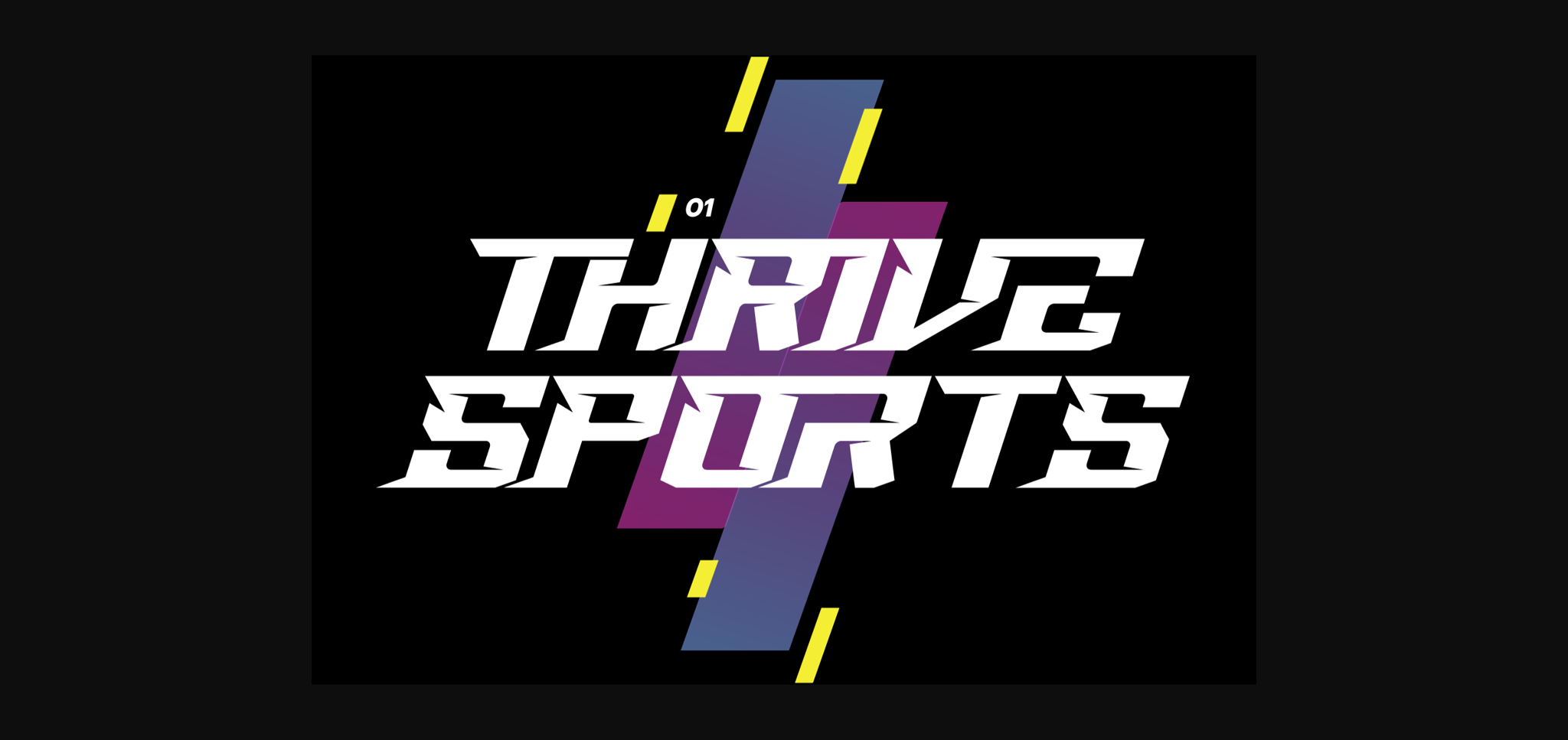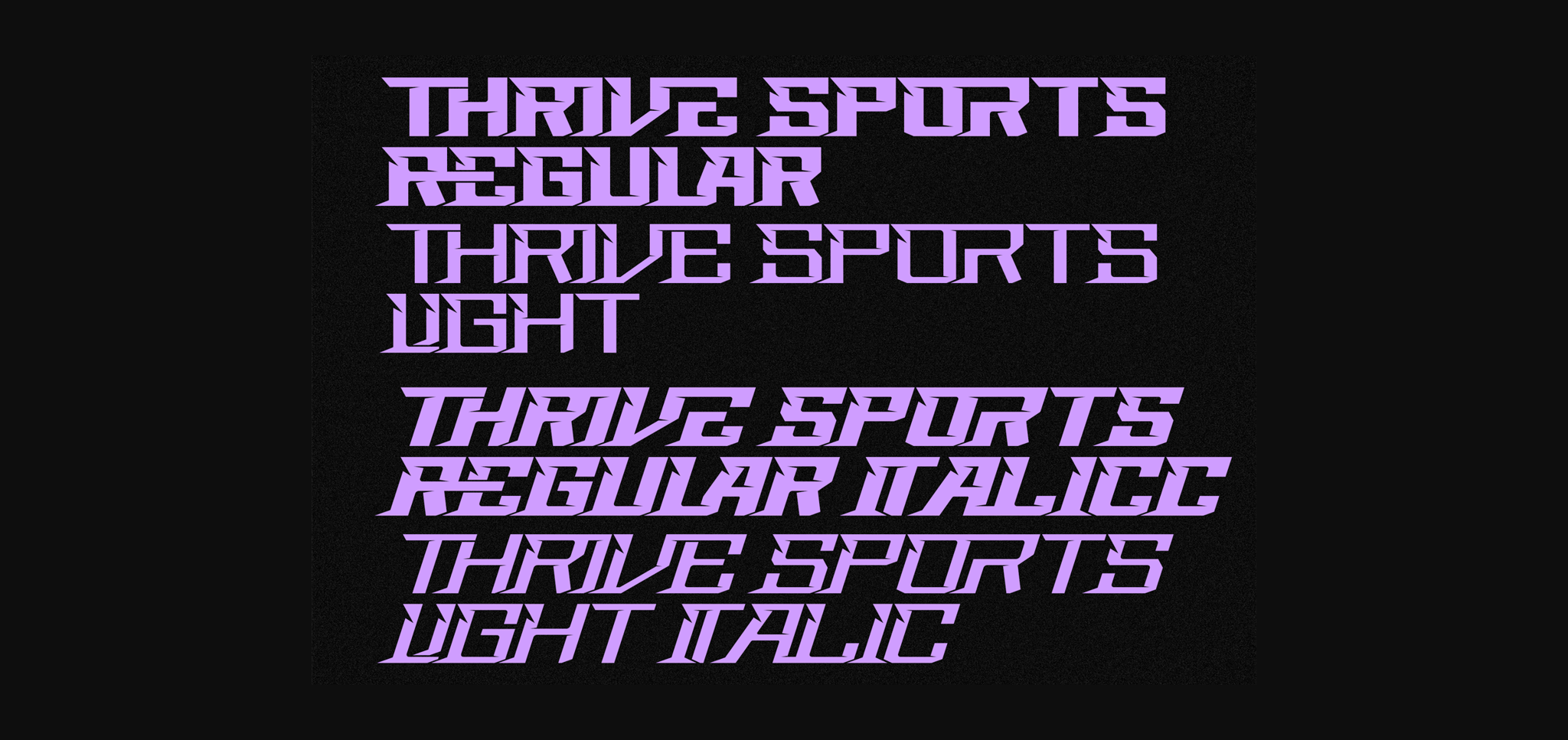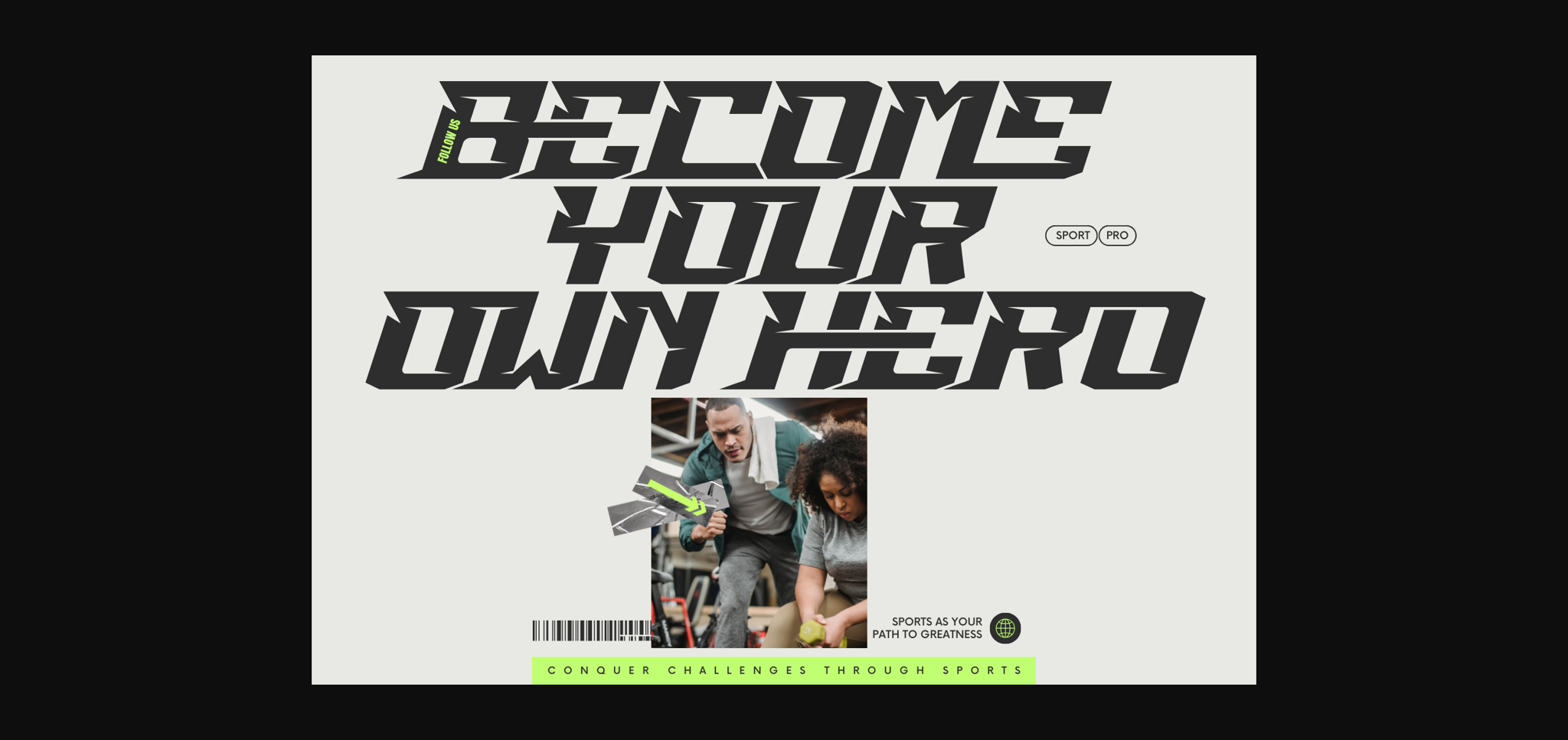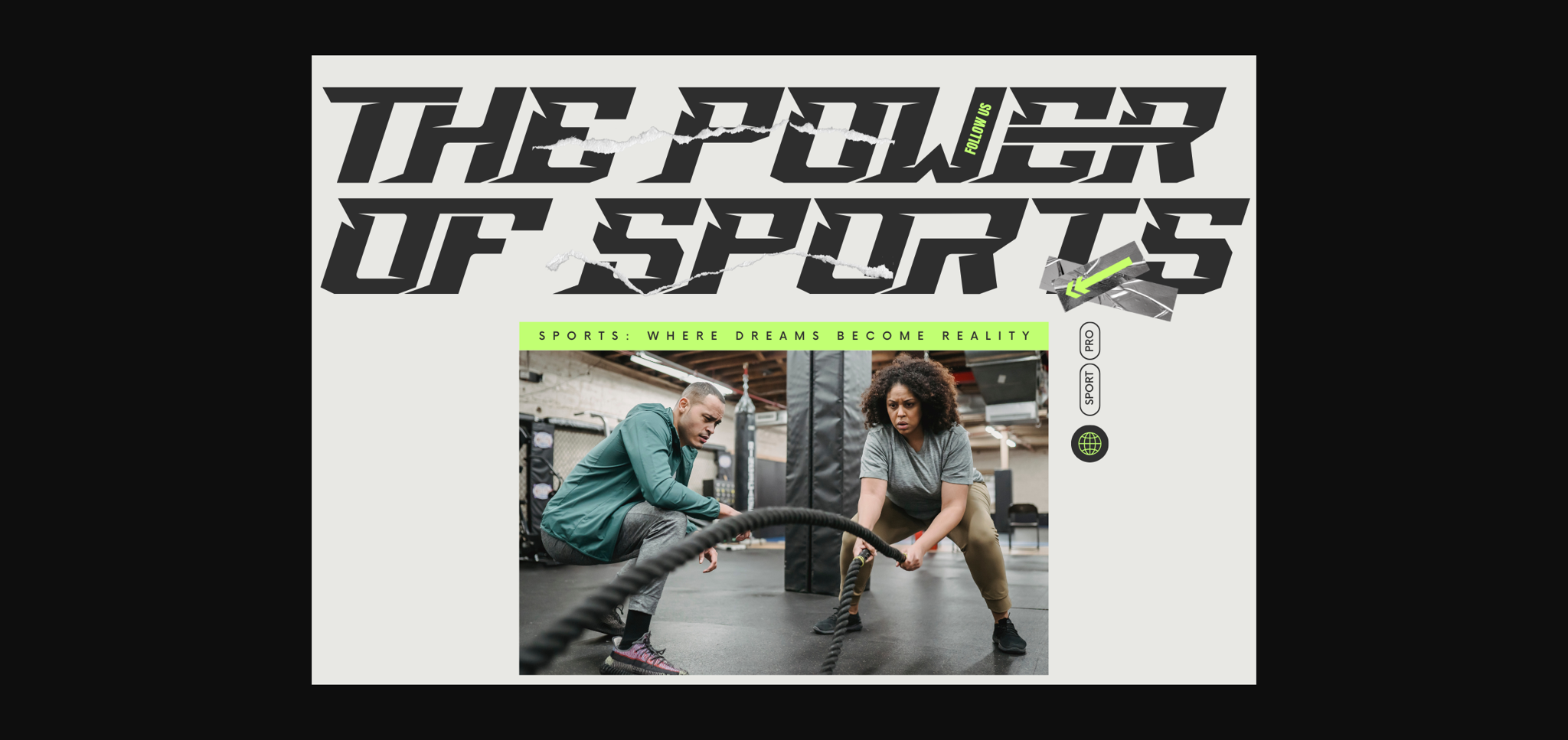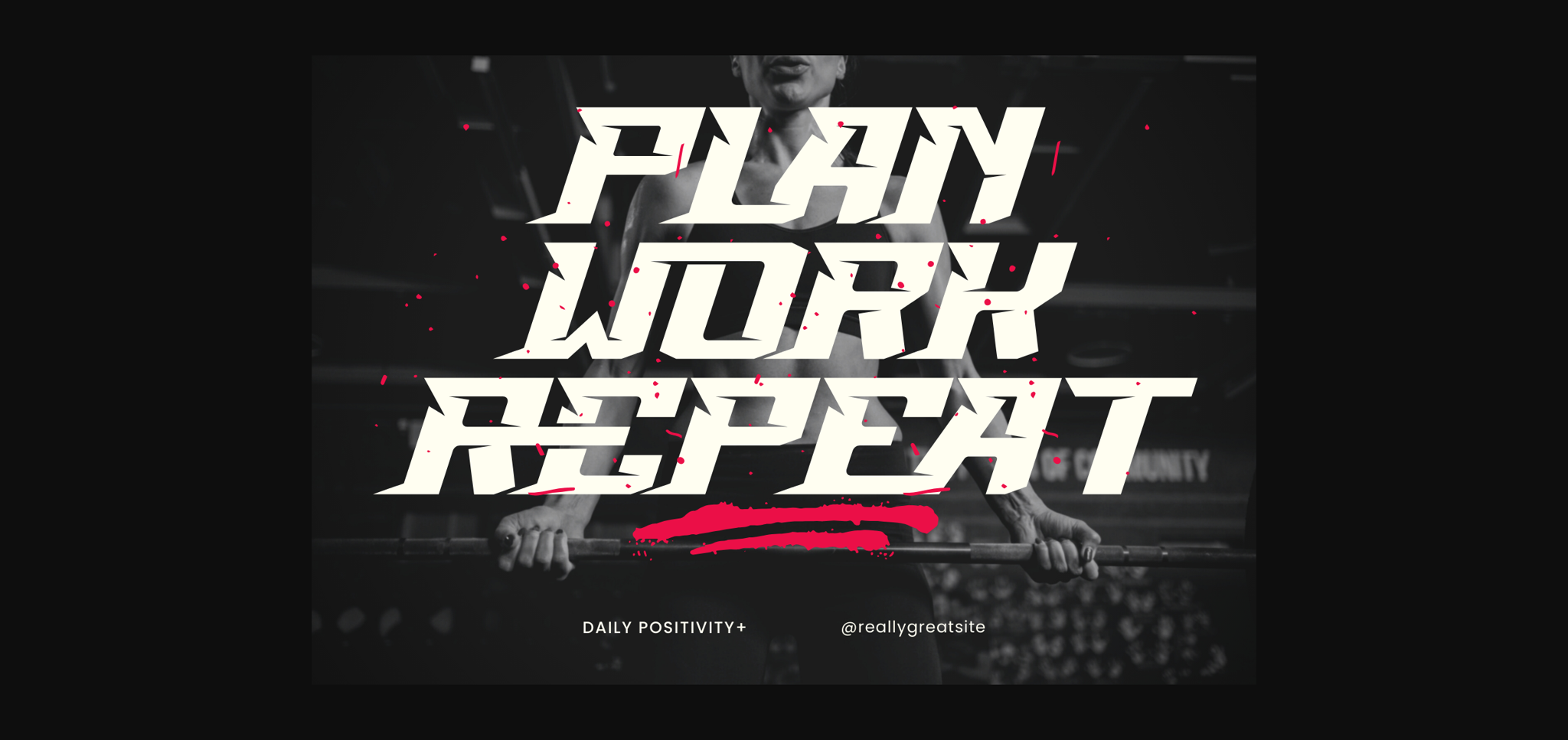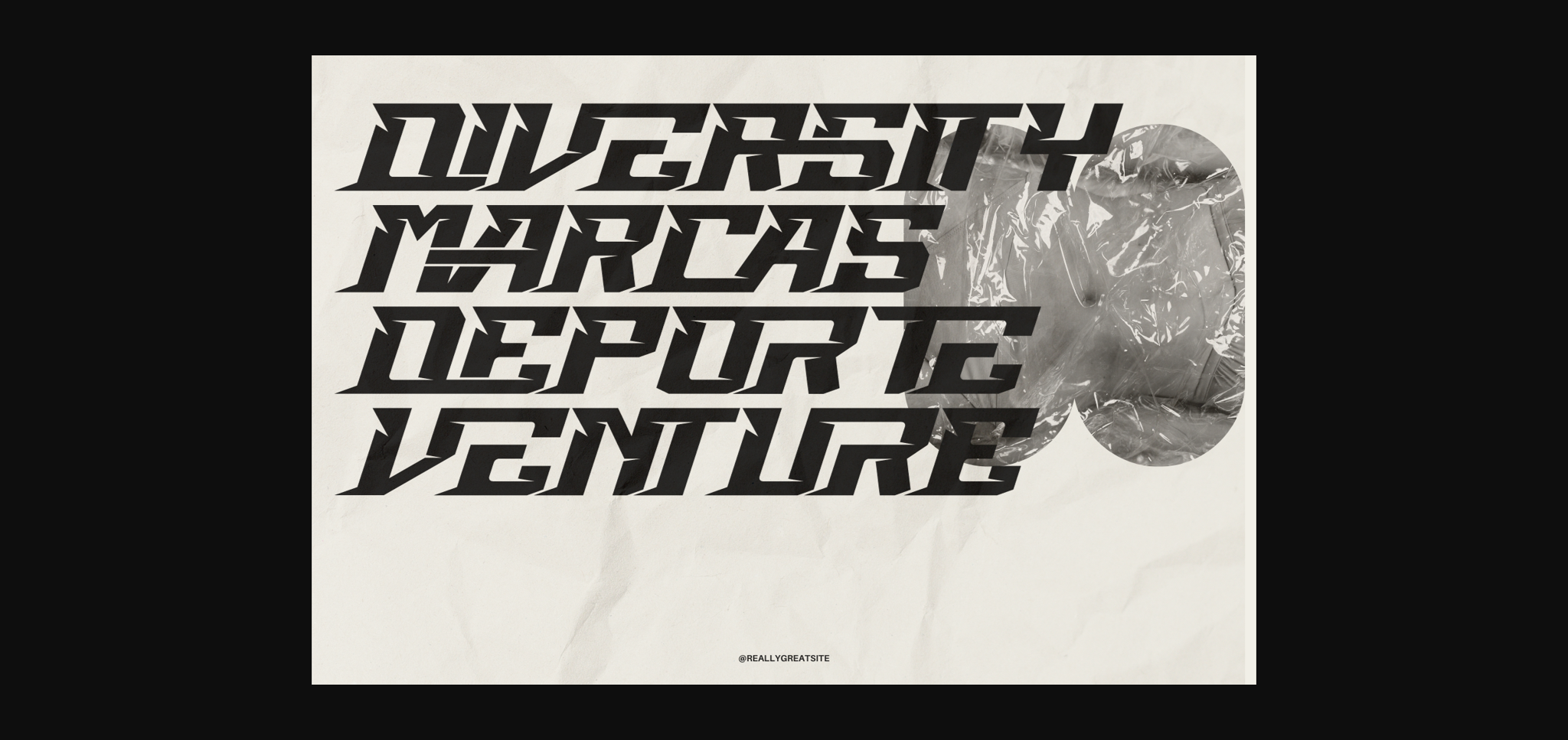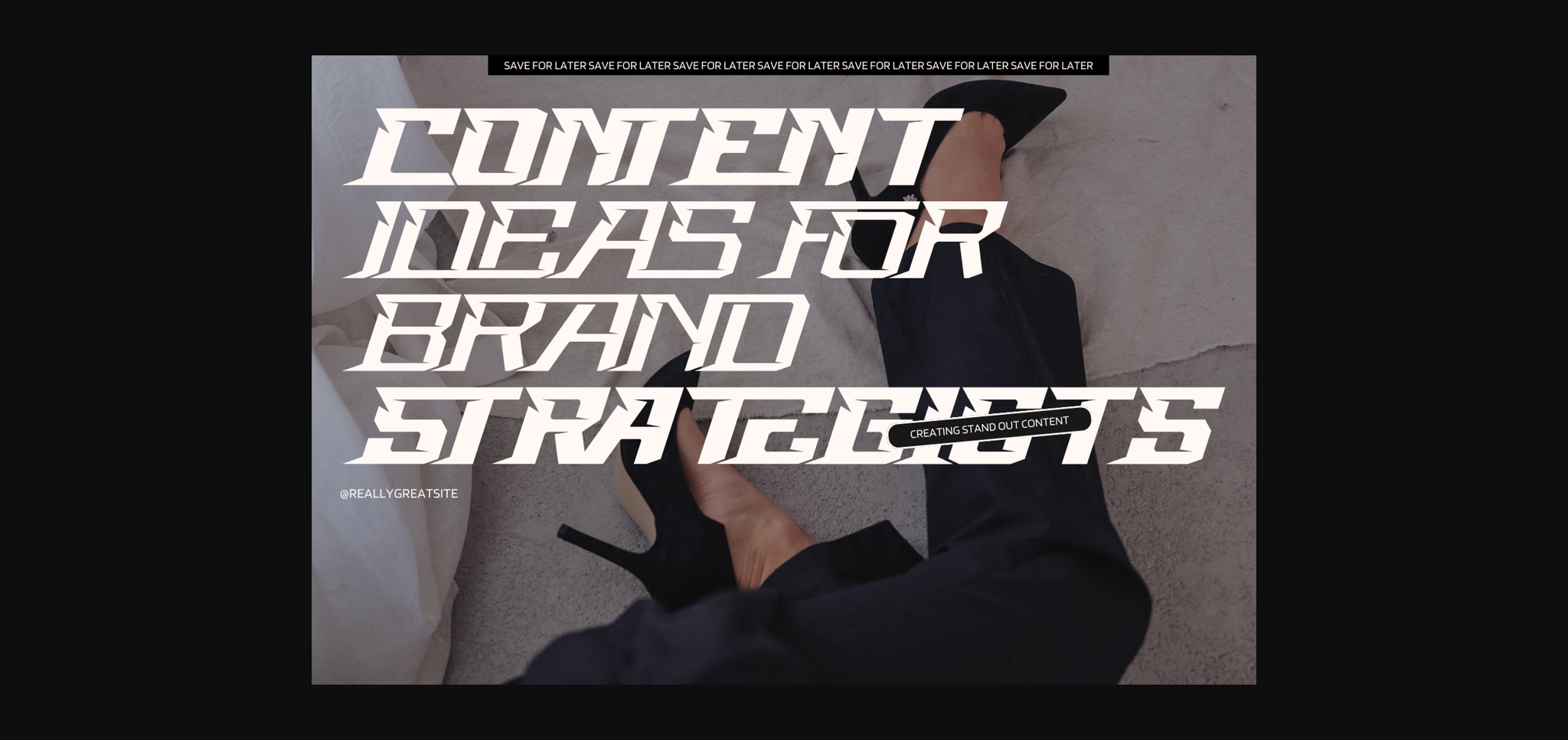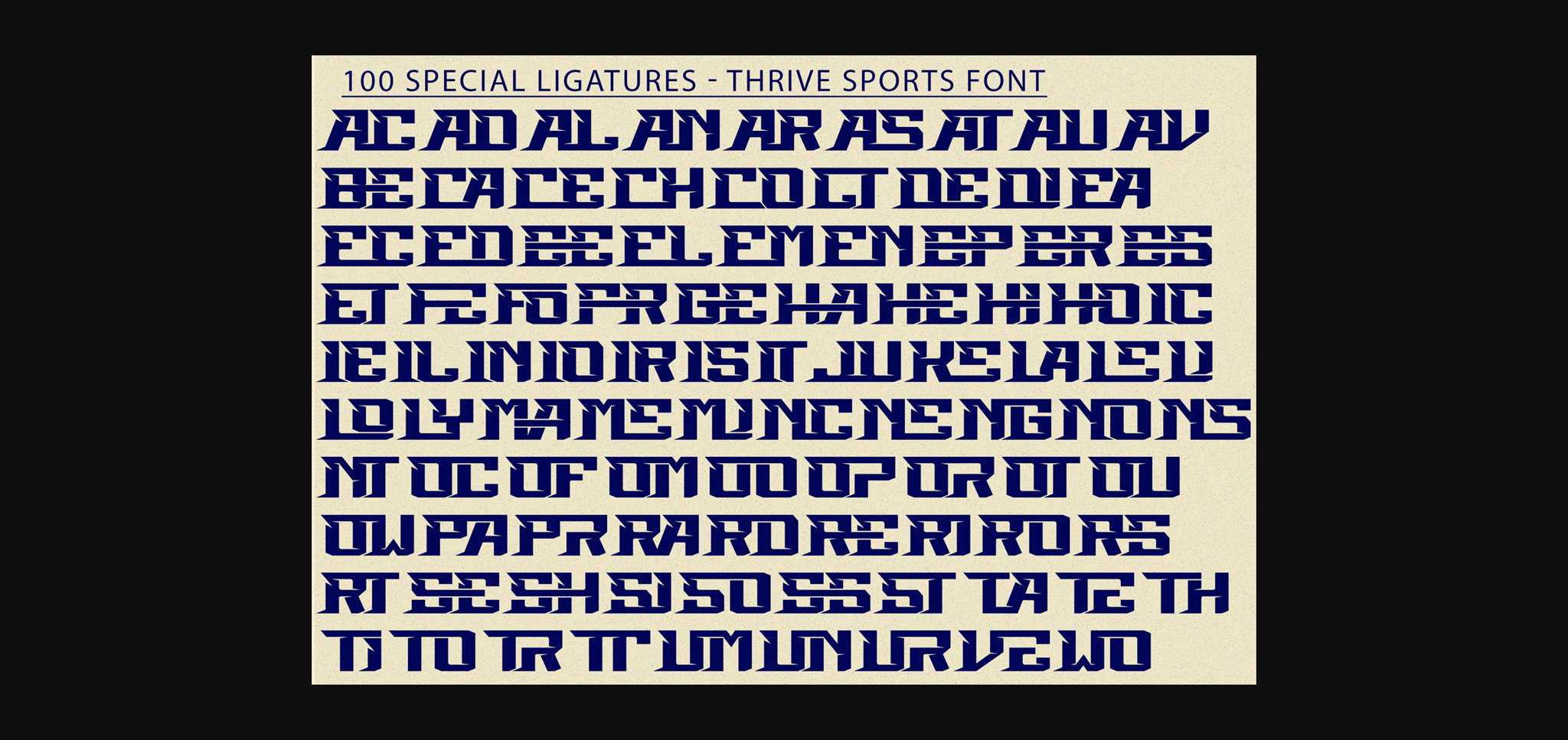
About Thrive Sports Font
Thrive Sports Font is a cool sports font with a fresh style, modern cutouts and dynamic tilt for a quick feel. This font an awesome sports font with wide italic fonts, modern cutouts, and dynamic slant. Ideal for fast car racing sports titles, running matches, cycling, automotive game logos and monograms or other modern dynamic text.
Thrive Sports was built with OpenType features and includes 100 ligatures, alternate, numbers, punctuation, and it also supports other languages.